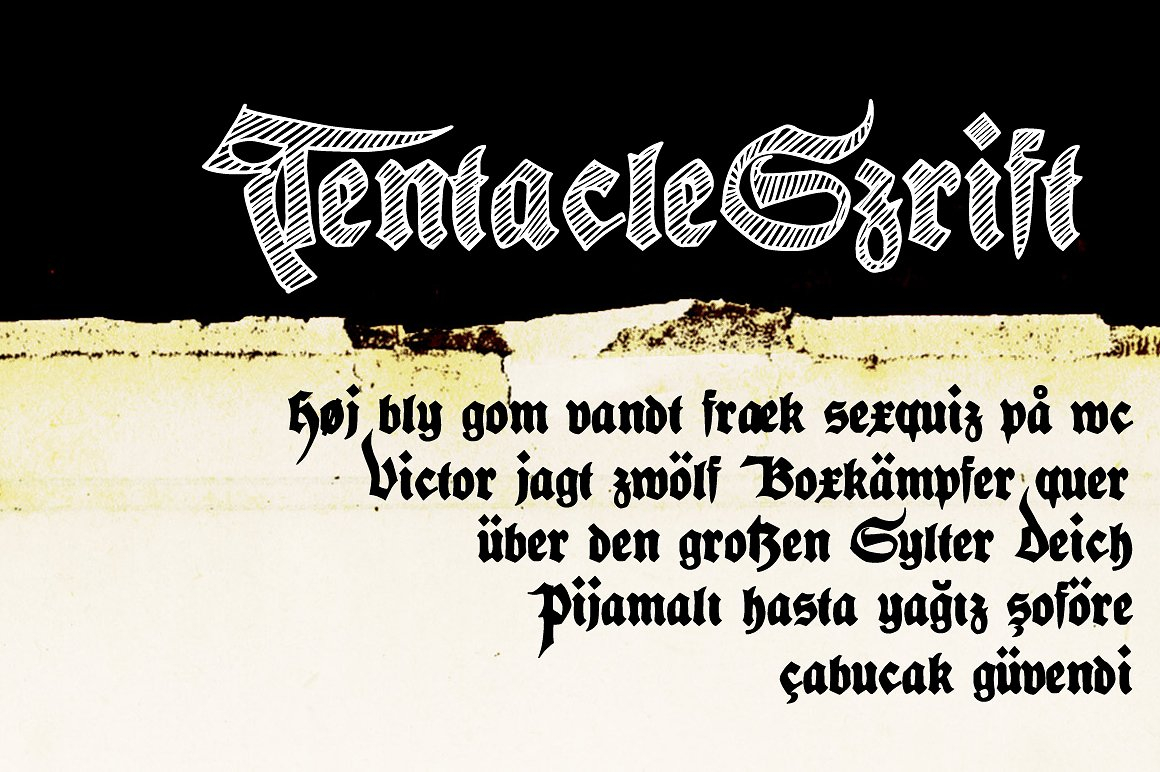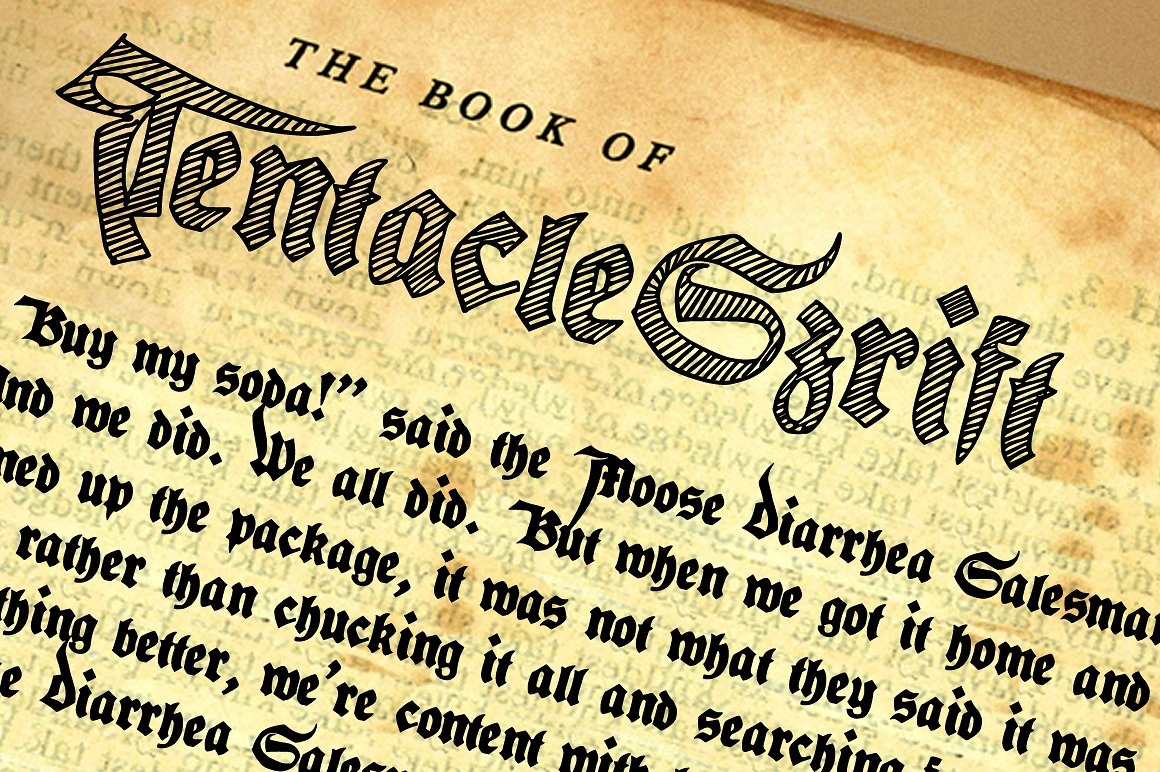
About Tentacle Szrift Font
Tentacle Szrift is a gorgeous blackletter font in a stylish, handwritten style. This display font is a great way to give your designs a unique appeal.